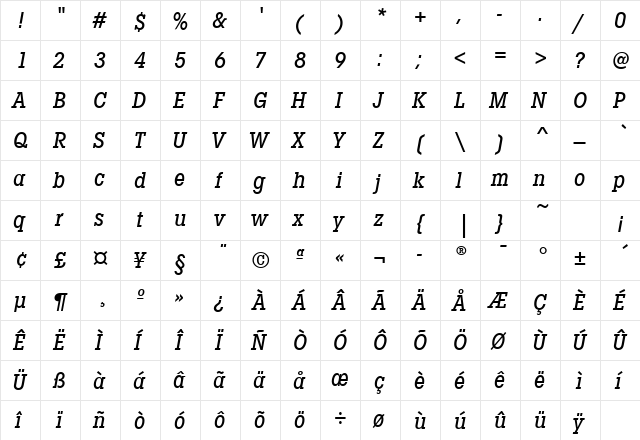
LubalinGraphMdCdITCTT Oblique Font Preview
LubalinGraphMdCdITCTT Oblique
LubalinGraphMdCdITCTT Oblique Font Details
Design Context for LubalinGraphMdCdITCTT Typeface
LubalinGraphMdCdITCTT offers clean, dependable letterforms without strong stylistic allegiance, making it a practical choice for designers who need flexibility. Its italic angle brings a sense of urgency and motion to the letterforms.
Pro Tip: Try LubalinGraphMdCdITCTT for annotation and caption copy alongside an upright companion — the contrast in angle creates a dynamic but ordered typographic system.